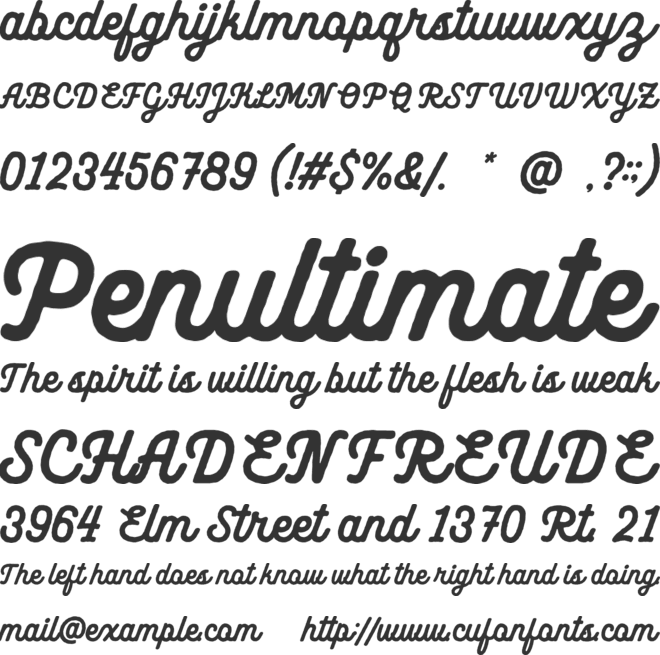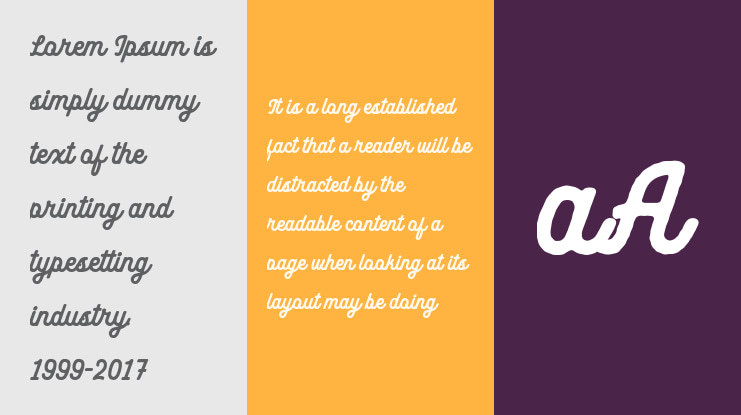
Vane Dream Typeface – Vintage Rough Monoline Script
Introducing Vane Dream Typeface, a premium rough monoline script crafted for designers who crave that authentic, handcrafted vintage aesthetic. Proudly designed by Alit Design Studio, Vane Dream perfectly captures the spirit of the great outdoors, classic motorides, and artisanal craftsmanship.
What sets Vane Dream apart is its incredible versatility and massive character set. Packed with an astounding 822 glyphs, this typeface is a typography playground. It features beautifully textured, rough-edged strokes that give your designs an instant retro letterpress or hand-painted sign feel. Whether you are designing a rugged biker t-shirt, a cozy coffee shop logo, a handcrafted botanical label, or an adventurous outdoor poster, Vane Dream adapts to your creative vision effortlessly.
To make your typography truly unique, Vane Dream comes loaded with extensive OpenType features, including up to 11 Stylistic Sets for lowercase letters and 7 Stylistic Sets for uppercase letters. Mix and match the dynamic swashes, sweeping tails, and custom ligatures to create stunning, custom-looking typography that flows naturally.